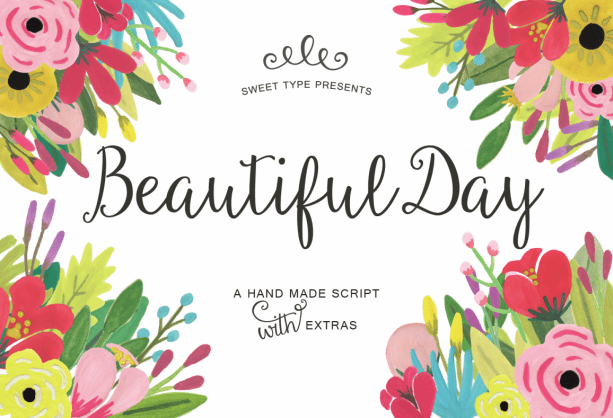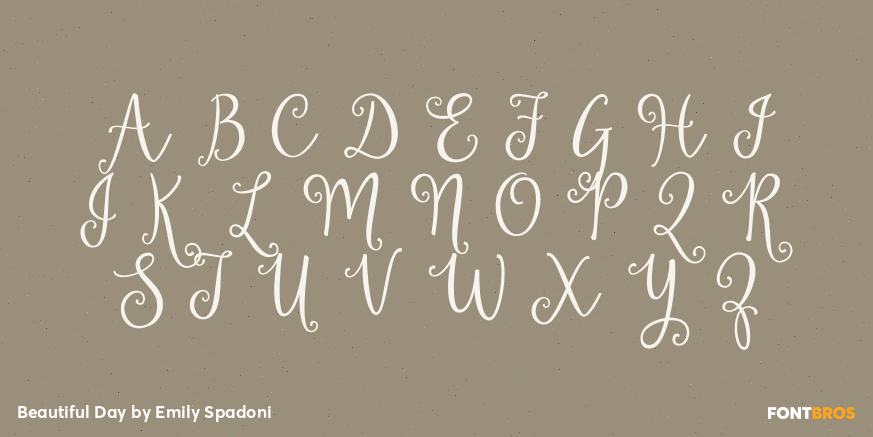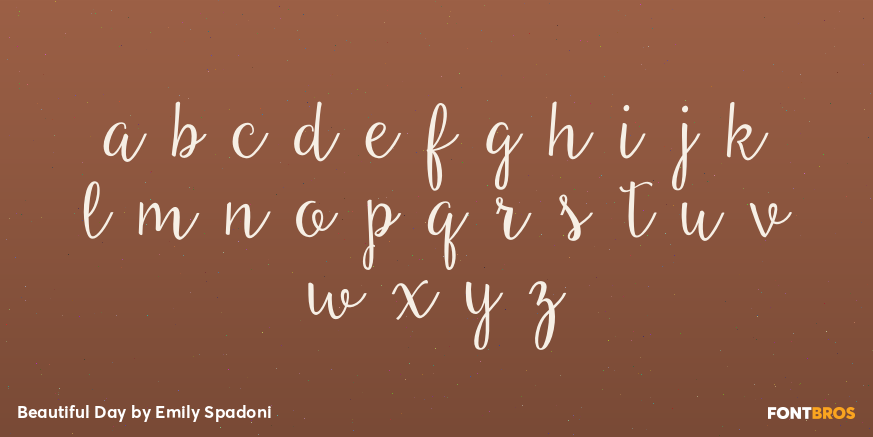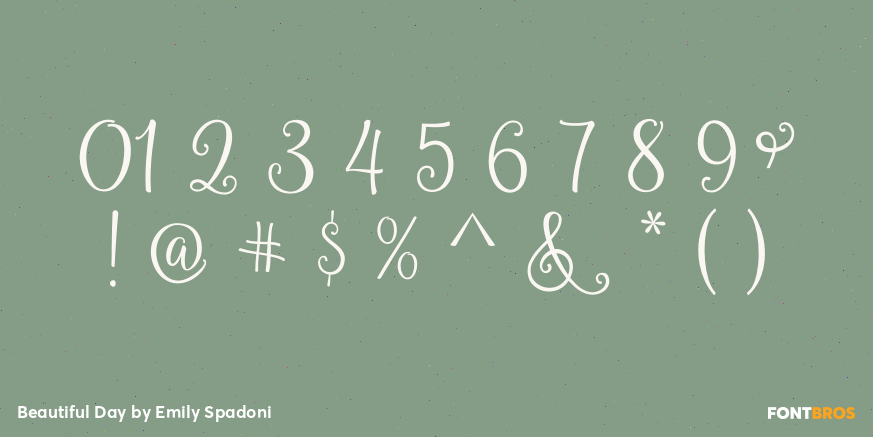
Beautiful Day
Font Family by Emily Spadoni
Beautiful Day is our very first font, brand new and ready for 2015. A beautiful hand-drawn script; casual in nature, but clean and organized. Including over 160 different hand-drawn characters for a range of languages and dialects.
Beautiful Day Regular
Beautiful Day Ornaments